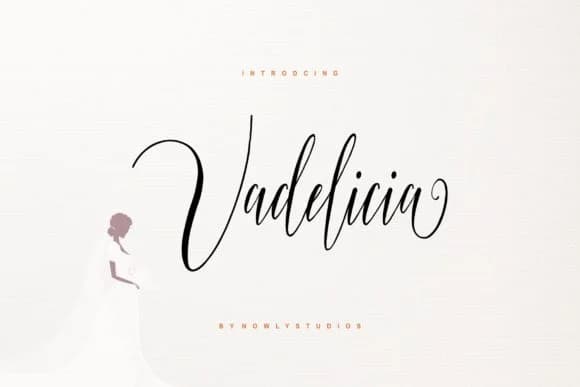
Vadelicia Script Font by nowlystudios is a fluid handwritten script that brings personal warmth and genuine character to projects that demand authenticity and real human touch. It maintains excellent readability even when set at smaller sizes, making it particularly well-suited for wedding invitation suites, personalized stationery and thank-you notes, formal greeting cards, and premium skincare packaging where legibility is just as important as visual impact.
Beyond traditional formal occasions, Vadelicia performs beautifully for small-business branding, Etsy product labels, and boutique packaging like artisanal candles and specialty cosmetics, particularly for beauty brands and artisanal food companies where hand-crafted appeal carries real weight. Its flowing letterforms feel genuinely handwritten without sacrificing clarity, a balance that requires thoughtful design thinking to achieve and maintain consistently. The script includes multiple weights and comprehensive language support, giving you flexibility to build cohesive brand systems across different scales and applications.
Vadelicia Script Font is a script font that shines as a display or heading face. Pair it with a clean sans-serif or serif font for body text β the contrast creates a clear hierarchy while the two styles stay balanced and easy to read.
Vadelicia Script Font